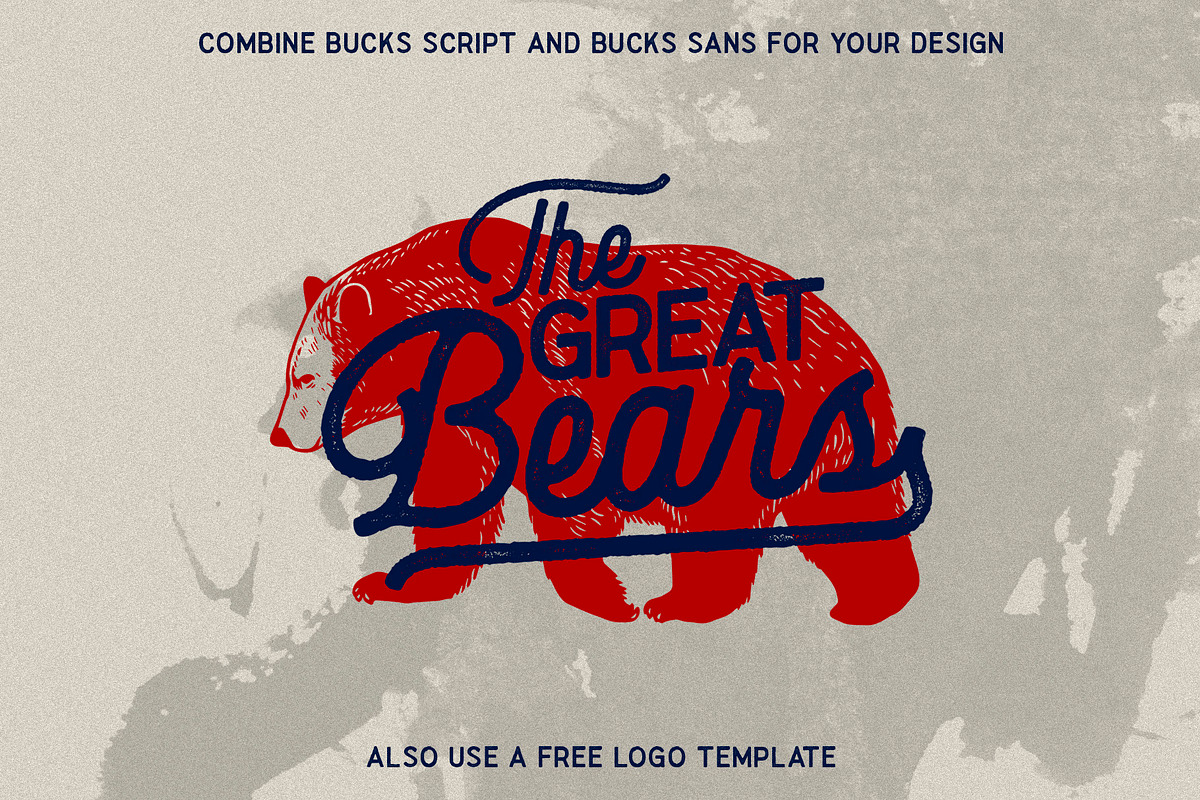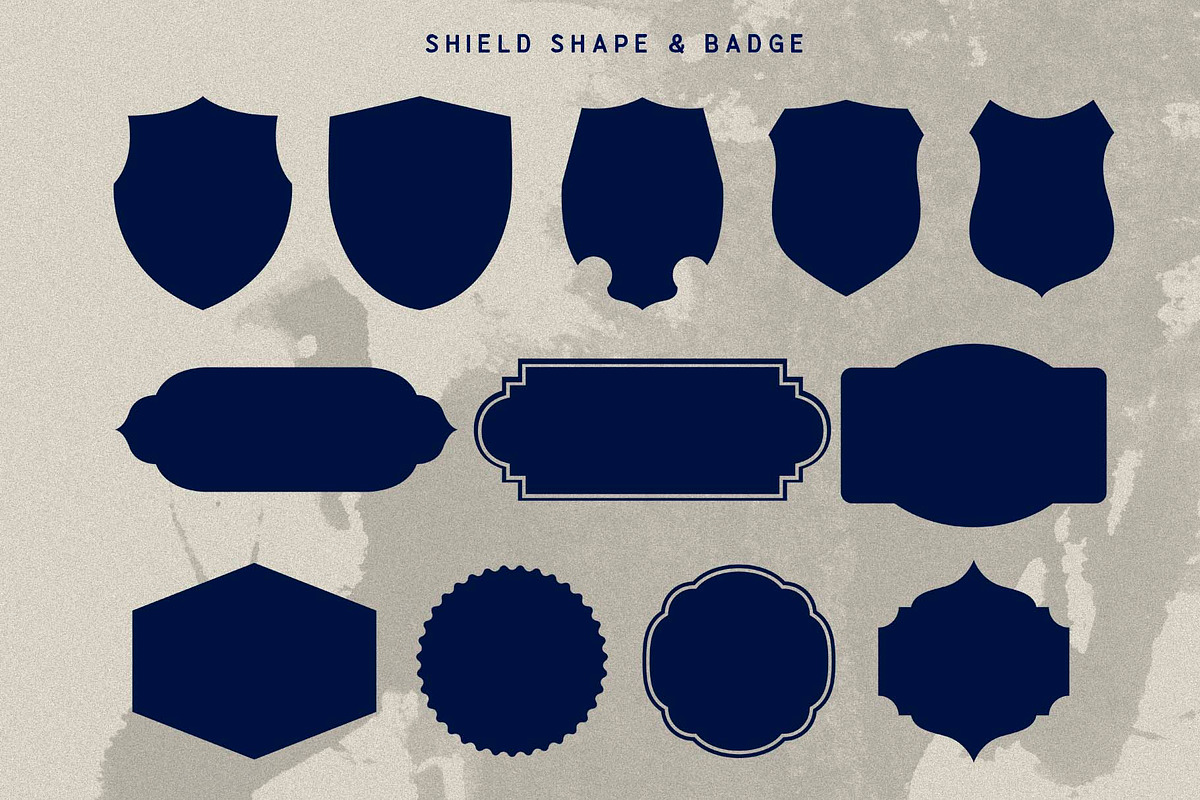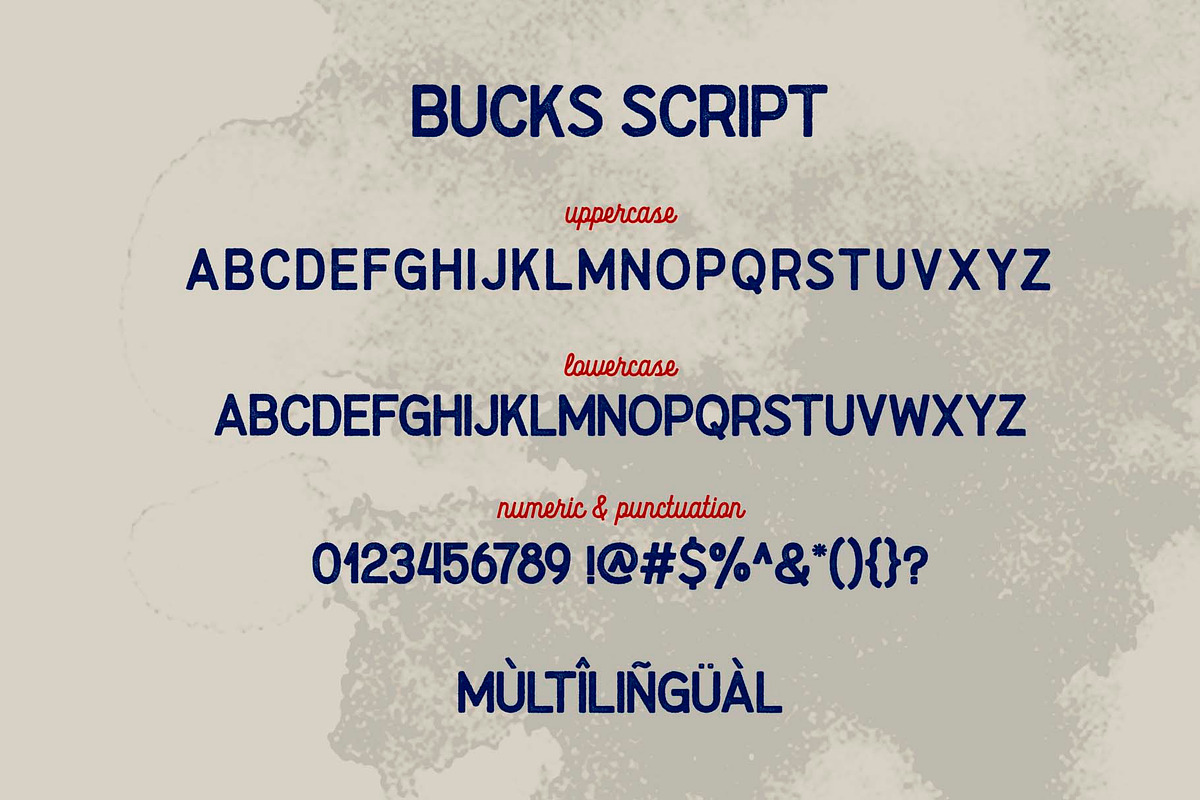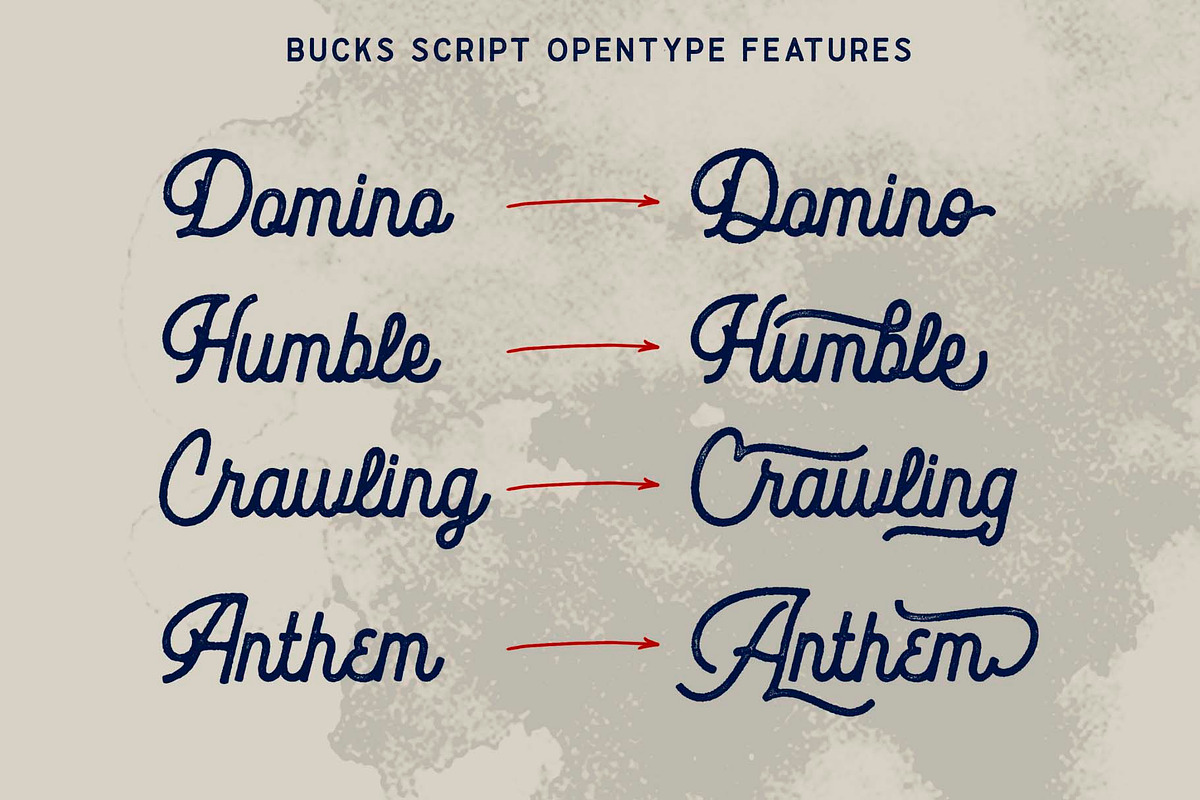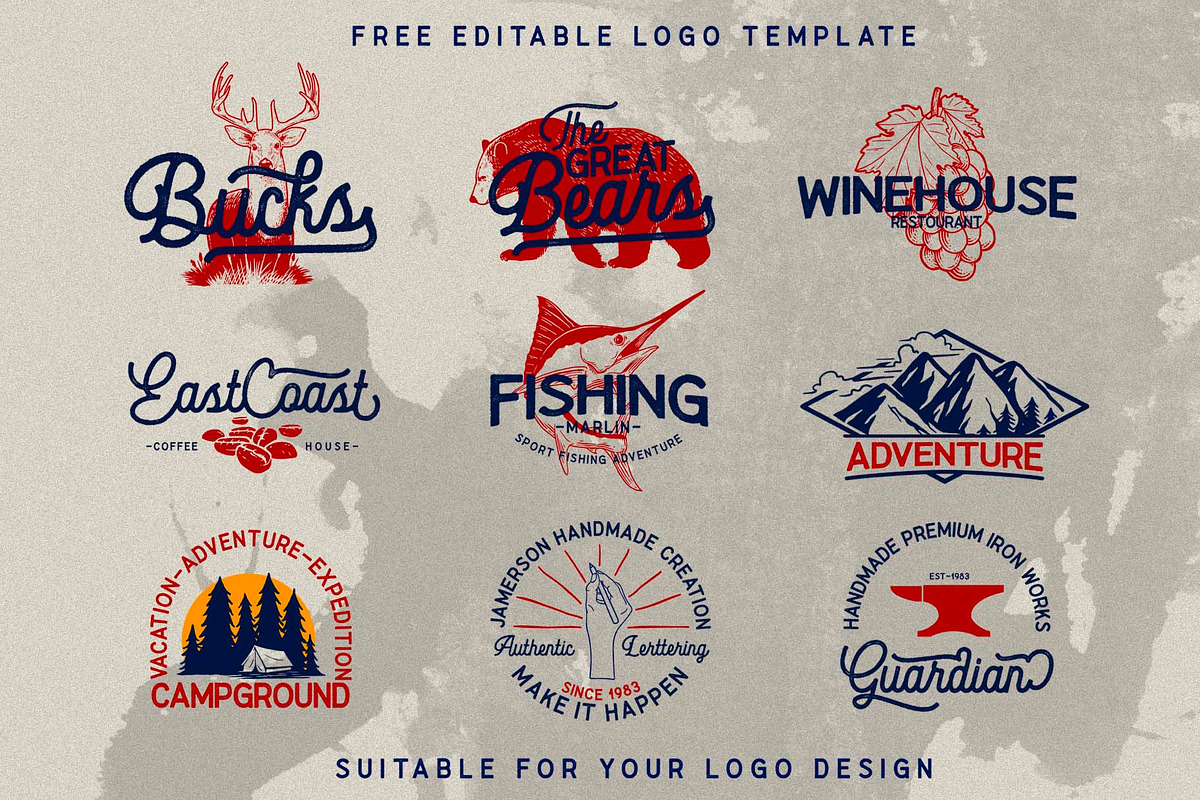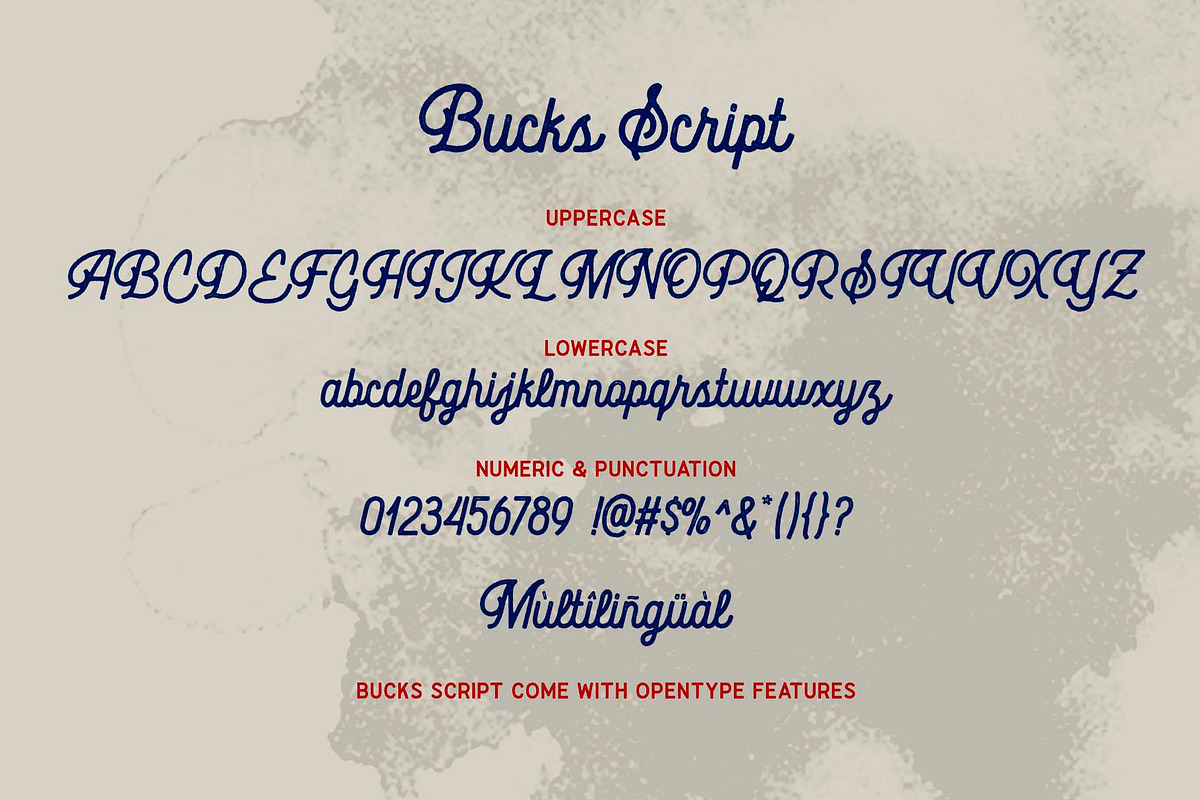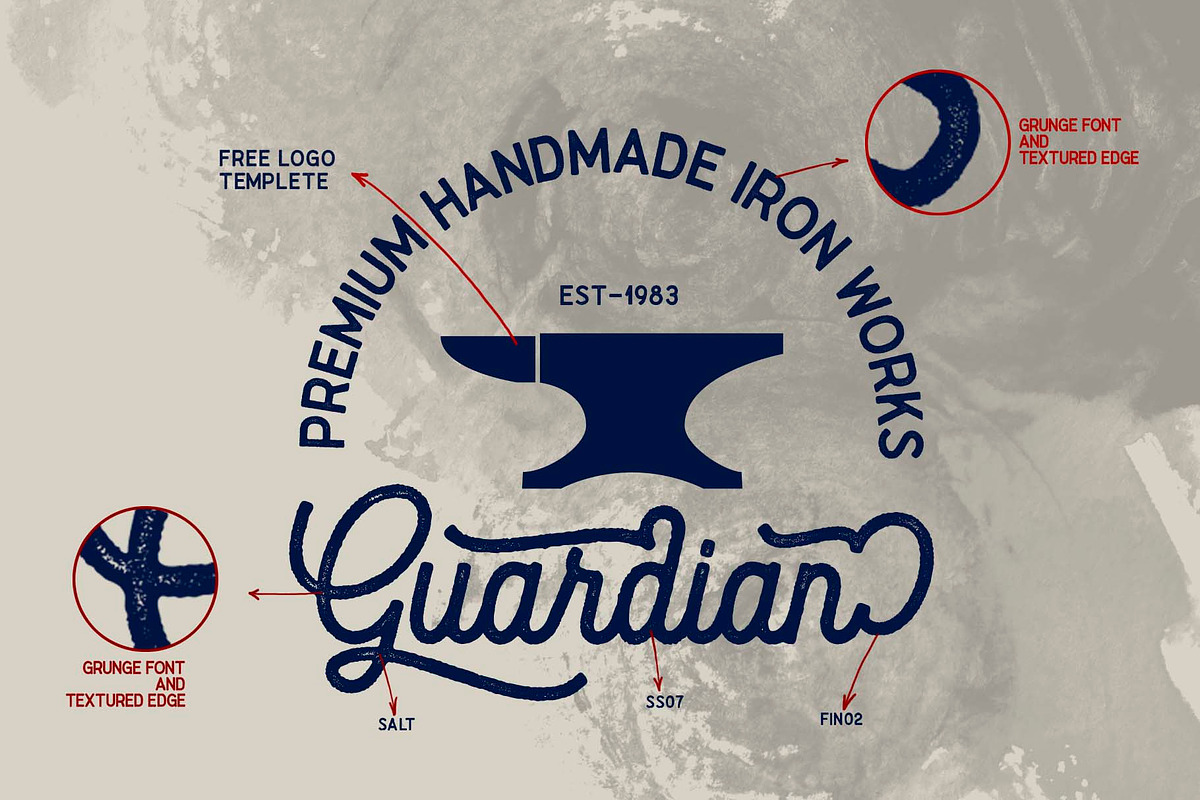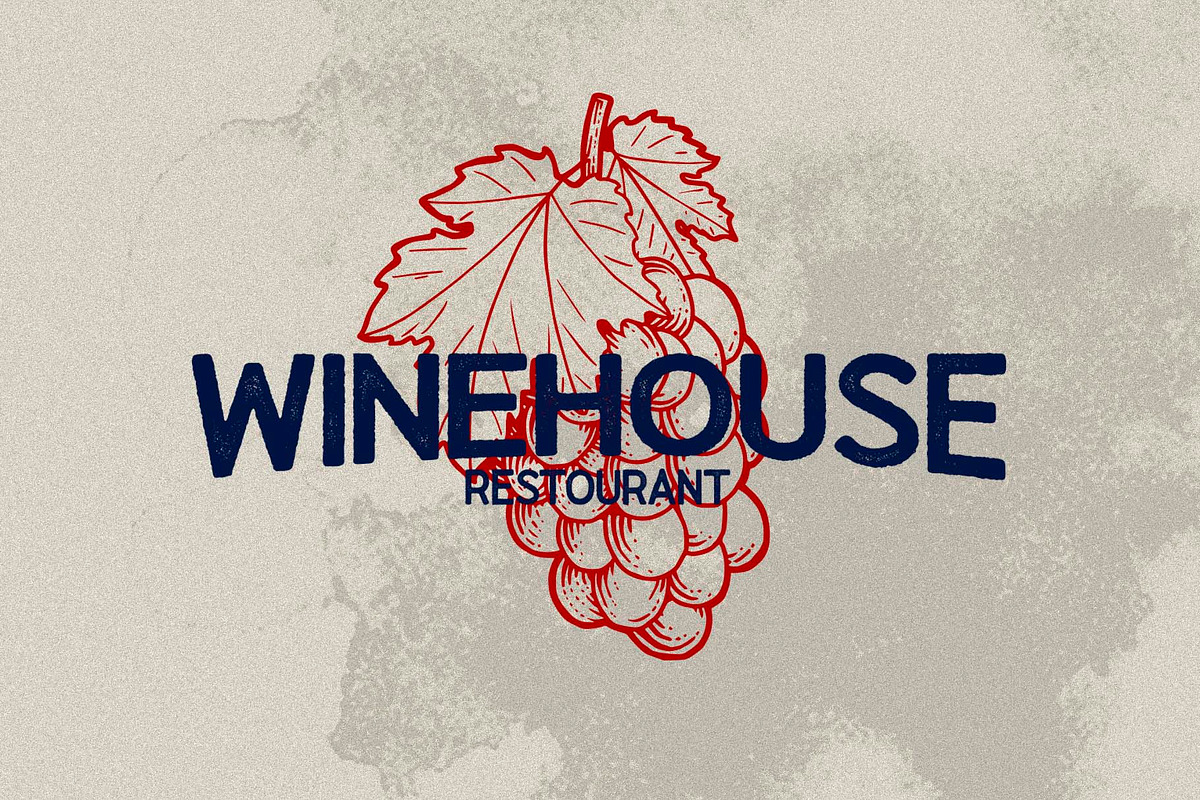
Bucks
Introducing Bucks script and buck sanserif, they are rough style font. This font is inspired by natural vibe and vintage look. In Bucks package you will get an editable logo and shield shape, so you can easily create the desired logo. This font is perfect use for logos, invitation, poster, print ad. Bucks script is equipped with opentype feature so you can be more creative to create works, while sanserif bucks are fonts with uppercase style.
Buck Script
- Character A - Z
- Numeric & Punctuation
- Alternates Character
Buck Sanserif
- Character A - Z
- Numeric & Punctuation